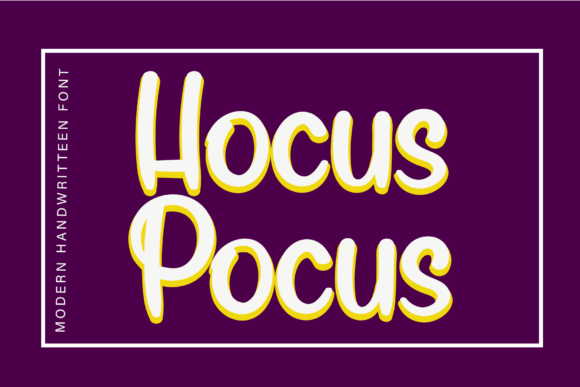
About Hocus Pocus Font
“Hocus Pocus” is a sweet and whimsical handwritten font that brings a touch of magic and playfulness to your design projects. With its unique and quirky style, this font is a versatile addition to your font library, suitable for a wide range of creative ideas.
One of the standout qualities of “Hocus Pocus” is its ability to infuse a sense of enchantment and whimsy into your designs. The font’s characters are crafted with a playful and slightly quirky appearance, making it well-suited for various design contexts. Whether you’re working on whimsical illustrations, greeting cards, invitations, or other projects, “Hocus Pocus” can add a touch of charm and magic.
The font’s handwritten style gives your text a personal and artistic quality, making it engaging and memorable for your audience. It’s a font that allows you to explore creative ideas and convey a sense of wonder and fun in your designs.
With “Hocus Pocus” in your font collection, you have a delightful and versatile tool that can bring a sense of enchantment and playfulness to your creative work. It serves as a reminder of how typography can add personality and creativity to your projects.
In summary, “Hocus Pocus” is a sweet and whimsical handwritten font suitable for a wide range of creative ideas. Its playful and enchanting style makes it a valuable asset for designers looking to add a touch of magic and charm to their designs. This font allows you to explore creative possibilities and create engaging and memorable visuals.